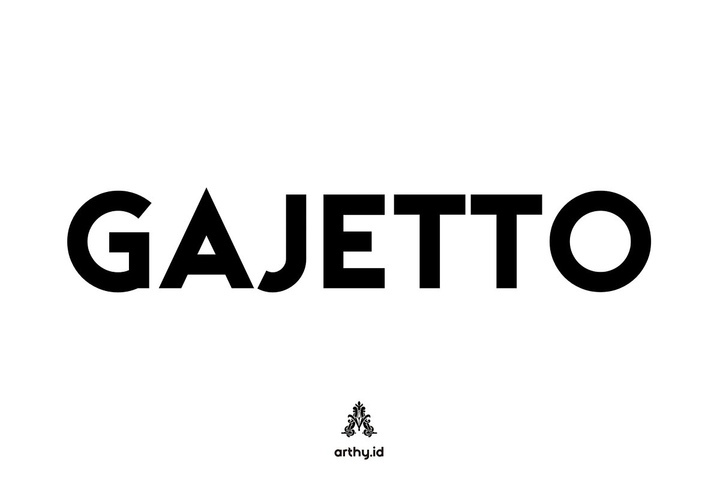
Gajetto Font
Gajetto Font is perfect for creative agencies, artistic portfolios, modern galleries, innovative startups, experimental design projects, contemporary branding, digital art platforms, cutting-edge marketing materials, avant-garde publications, and dynamic visual identity systems.
Gajetto Font is exciting because it pushes the boundaries of conventional typography while maintaining remarkable functionality, creating a typeface that celebrates creative expression and artistic innovation. This font brings bold originality and contemporary flair to any project, making it ideal for brands and designers who want to convey creativity, uniqueness, and forward-thinking vision. Its distinctive character and experimental nature create an immediate visual impact that captures attention and sparks curiosity.
Gajetto Font family includes light, regular, medium, bold, and black weights, along with stylistic alternates, experimental ligatures, and creative character variations, providing designers with extensive tools for pushing typographic boundaries and creating unique visual expressions.
This innovative typeface combines artistic experimentation with practical usability, making Gajetto Font Free Download an outstanding choice for projects that demand both visual impact and functional reliability. The font's carefully balanced unconventional elements and readable structure ensure that creativity never compromises communication effectiveness.
Whether you're designing experimental brand identity, artistic exhibition materials, or cutting-edge digital platforms, Gajetto Font delivers unmatched creative potential and visual distinction. The font excels in both display applications where its unique character shines and practical uses where its functionality supports clear communication.
Creative professionals appreciate Gajetto Font for its ability to instantly differentiate projects while maintaining professional credibility and readability standards. The font's artistic character makes it particularly suitable for design studios, creative agencies, and innovative companies that value originality.
Each character demonstrates thoughtful balance between experimental design and practical functionality, featuring unique details that reward exploration while supporting effective communication across various applications.